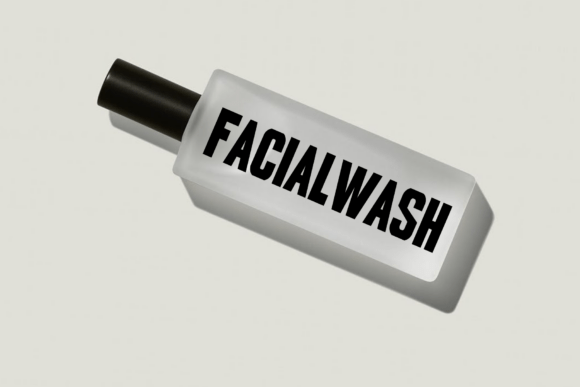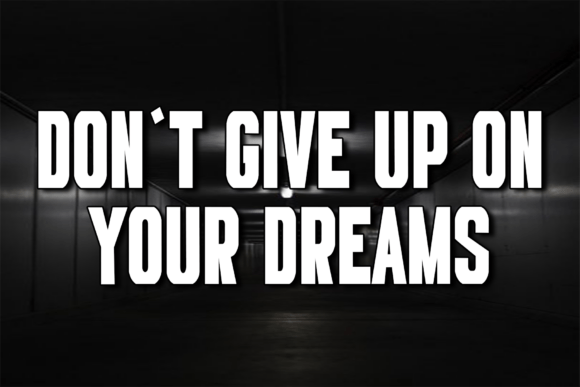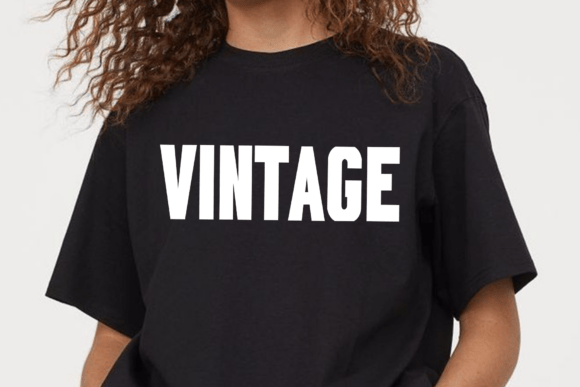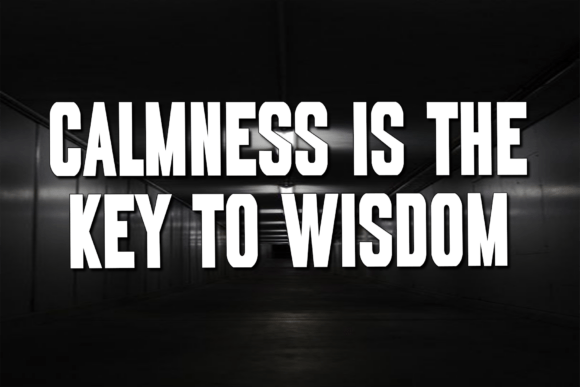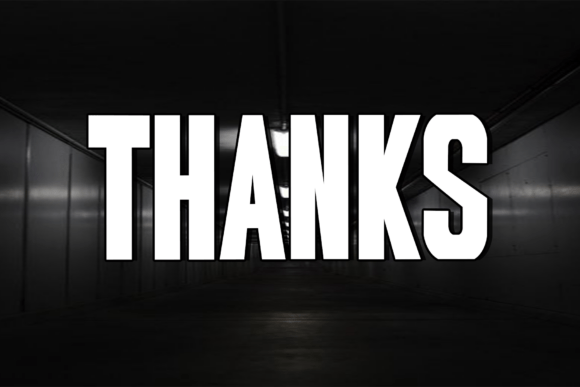
Introduction to Longline Font
Longline is a minimal and neat font.
Key Features of Longline Font
Why Choose Longline Font?
Longline Font offers exceptional quality and versatility, making it a valuable addition to your design toolkit. Whether you’re creating for personal projects or commercial use, Longline Font delivers professional results.